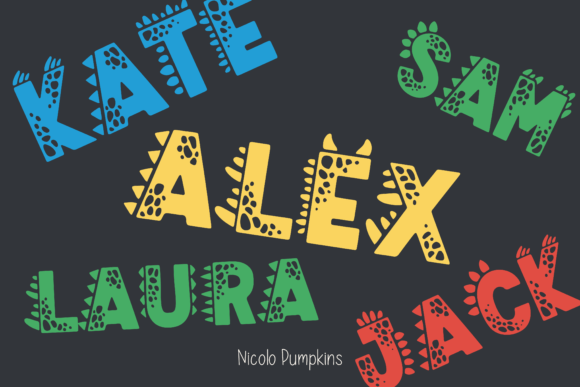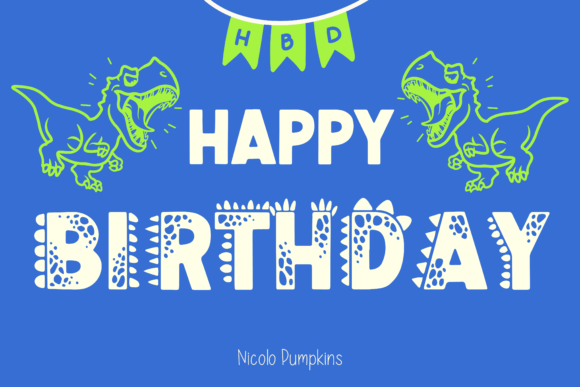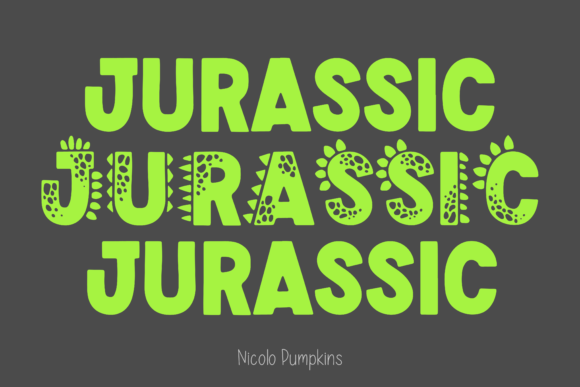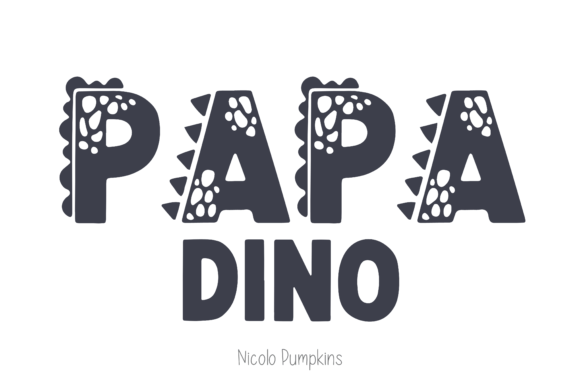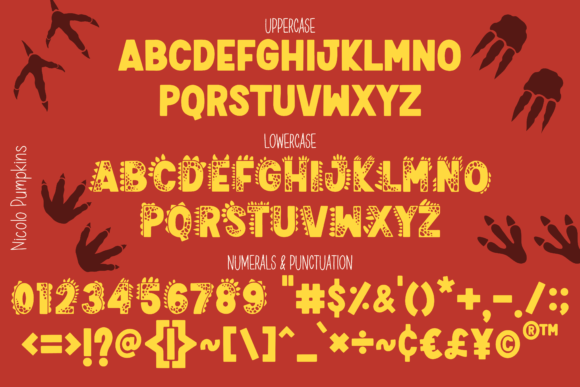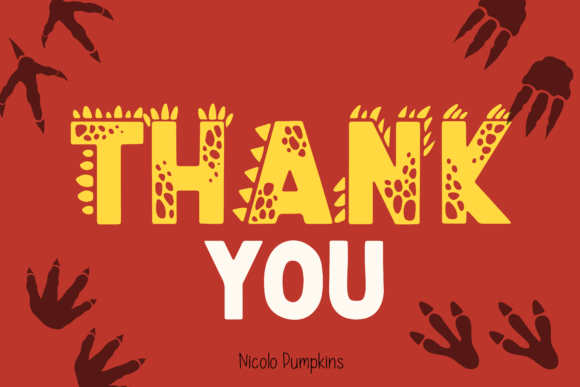
Dino Park Font: The Ultimate Choice for Fun and Creative Designs
Are you a designer or crafter looking for a font that’s perfect for kids’ and teens’ designs, as well as family projects? Look no further than the Dino Park font! This adorable dinosaur display font is suitable for a wide range of creative projects, from T-shirts and tote bags to wedding invitations and logos.
What Makes Dino Park Font So Special?
The Dino Park font is a cute and playful font that’s sure to delight kids and adults alike. Its unique and quirky design makes it perfect for creating fun and eye-catching designs that are sure to stand out. Whether you’re designing for kids, teens, or families, this font is sure to bring a smile to their faces.
The Dino Park font is incredibly versatile and can be used for a wide range of design projects, including:
- T-shirts and hoodies
- Tote bags and hats
- Stickers and decals
- Wedding invitations and cards
- Quotes and posters
Its bold and playful design makes it perfect for creating eye-catching designs that are sure to grab attention.
Why Designers and Crafters Love Dino Park Font
Designers and crafters love the Dino Park font for many reasons. Here are just a few:
- Easy to read: Despite its playful design, the Dino Park font is easy to read, even in large and small sizes.
- Highly versatile: The font can be used for a wide range of design projects, from kids’ designs to family projects.
- Cute and playful: The font’s unique and quirky design makes it perfect for creating fun and eye-catching designs.
- Great for kids and teens: The font’s playful design makes it perfect for kids’ and teens’ designs, but it’s also great for family designs.
Tips for Using Dino Park Font
Here are a few tips for using the Dino Park font in your designs:
- Use it for headlines: The font’s bold design makes it perfect for headlines and titles.
- Pair it with other fonts: The font pairs well with other fonts, such as sans-serif fonts, to create a fun and playful design.
- Experiment with colors: The font looks great in a variety of colors, from bright and bold to pastel and soft.
The Dino Park font is a fun and playful font that’s perfect for designers and crafters looking to create eye-catching designs for kids, teens, and families. Its unique and quirky design makes it perfect for a wide range of design projects, from T-shirts and tote bags to wedding invitations and logos. With its ease of use and versatility, the Dino Park font is sure to become a favorite in your design arsenal.